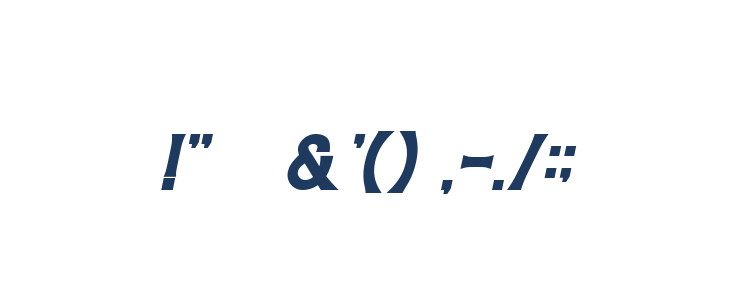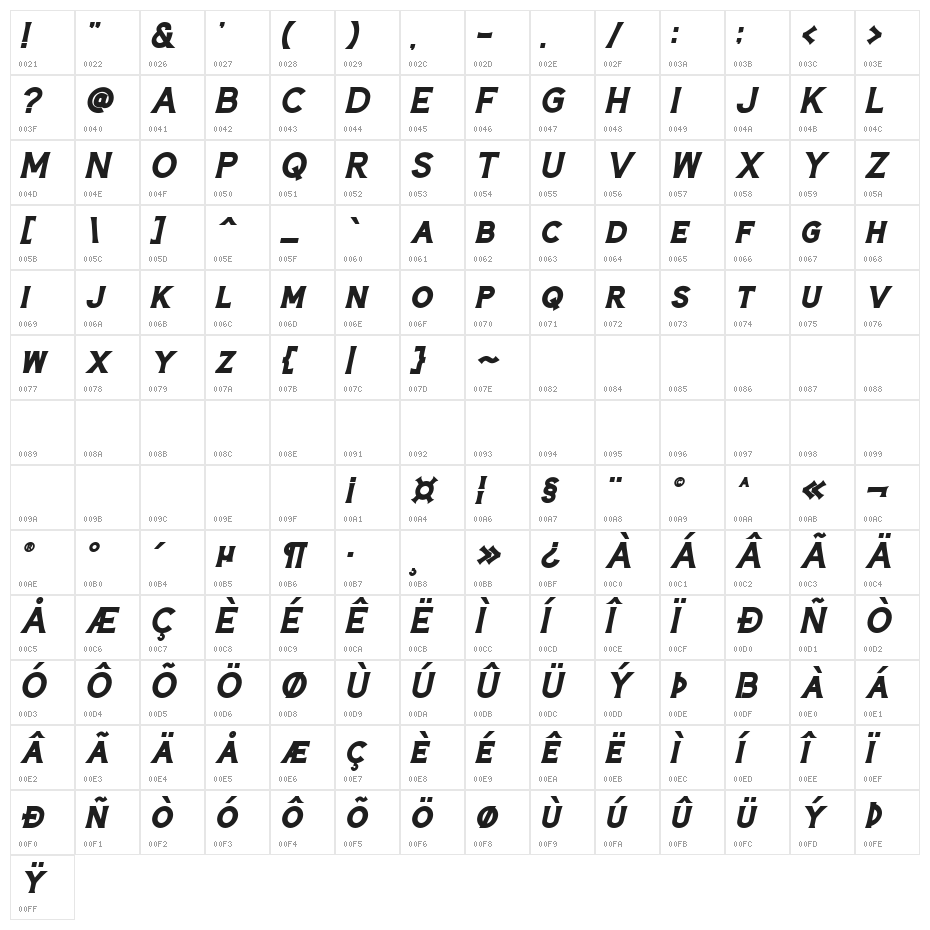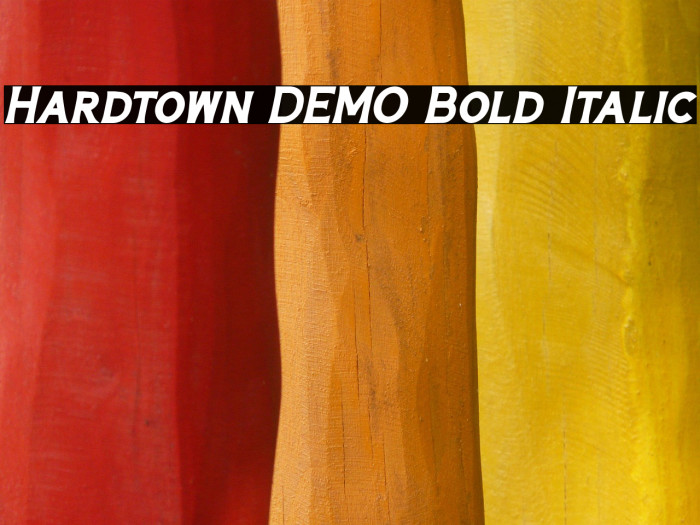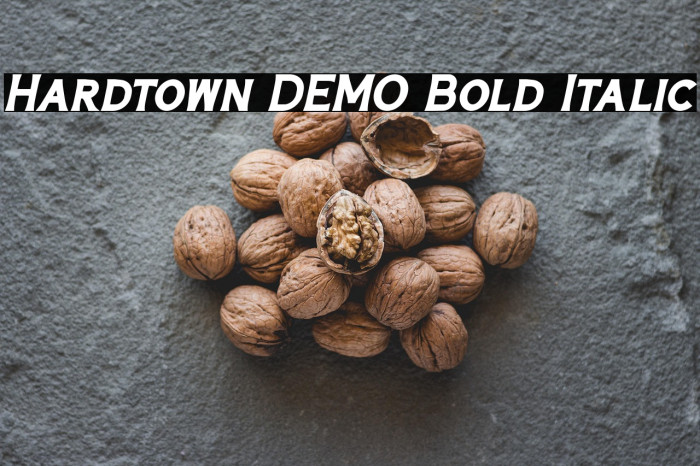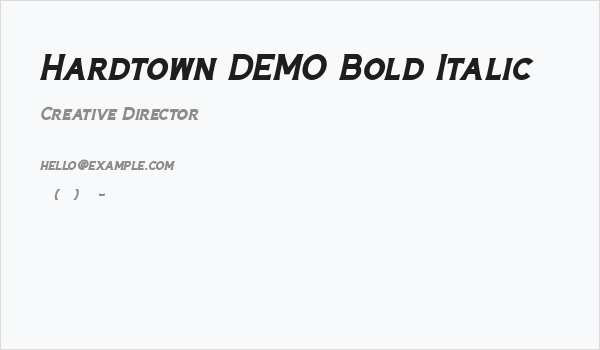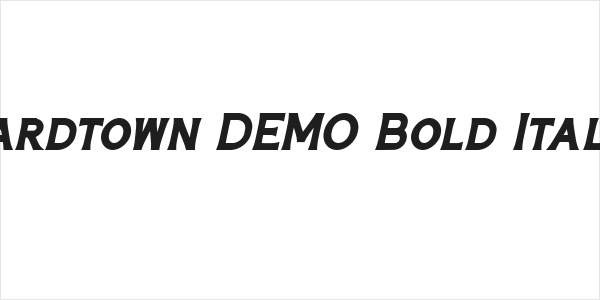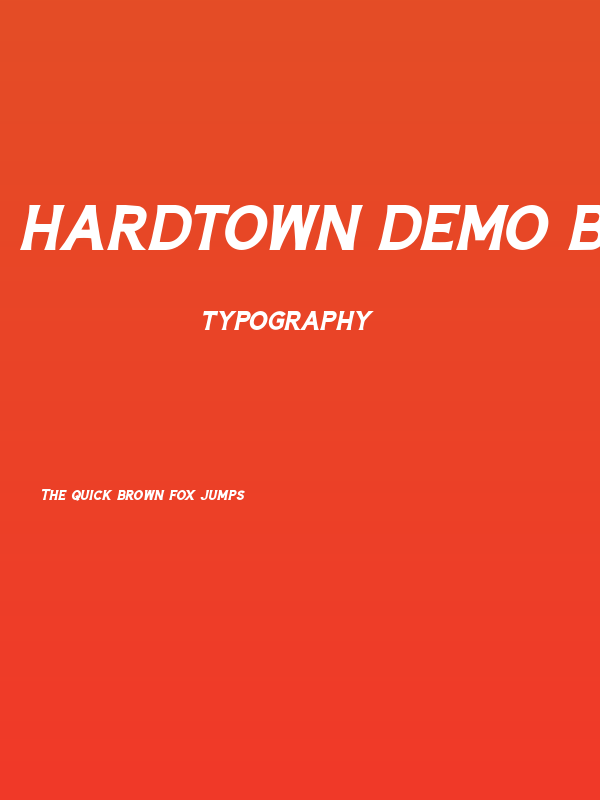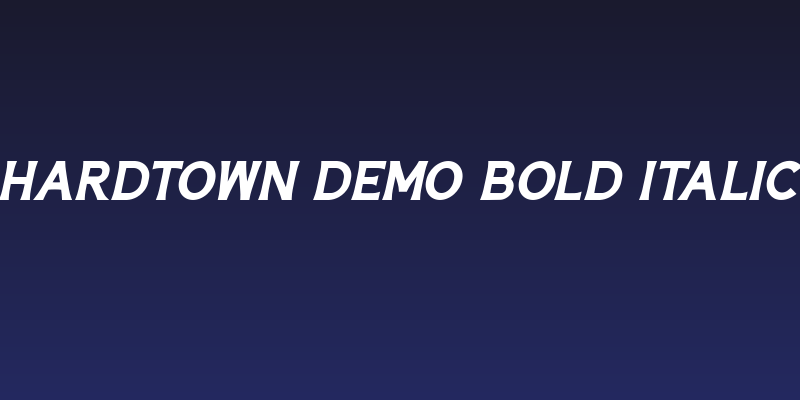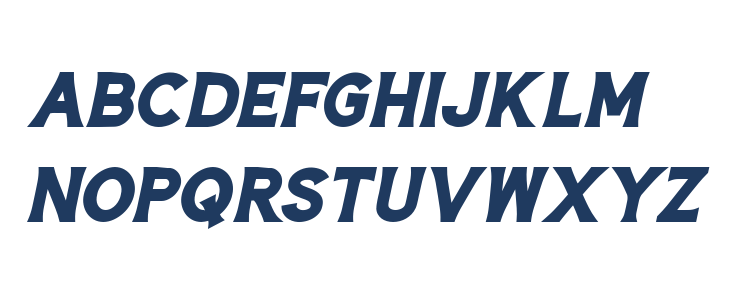
Hardtown DEMO Bold Italic Font
Hardtown DEMO Bold Italic Description
This font features a bold and italicized style, characterized by its strong, dynamic slant and thick strokes. The uppercase letters are prominently displayed with a forward-leaning posture, giving a sense of movement and urgency. The characters are well-defined with a consistent weight throughout, ensuring readability while maintaining a striking appearance. The special characters are integrated seamlessly, matching the bold and italicized nature of the alphabet. This font is designed to capture attention and convey a sense of modernity and strength.
| Use Case | Headlines, Logos, Advertising |
| Proposed Projects | Ideal for branding, advertising, headlines, and any project requiring a bold statement. |